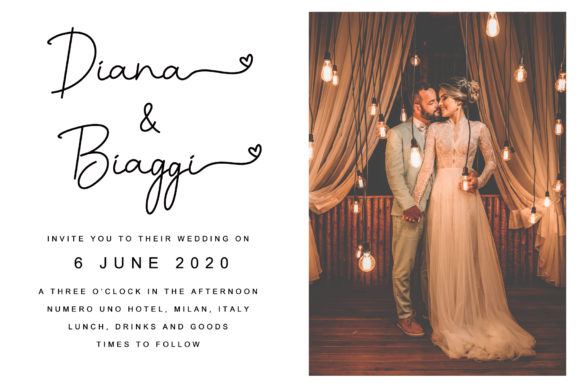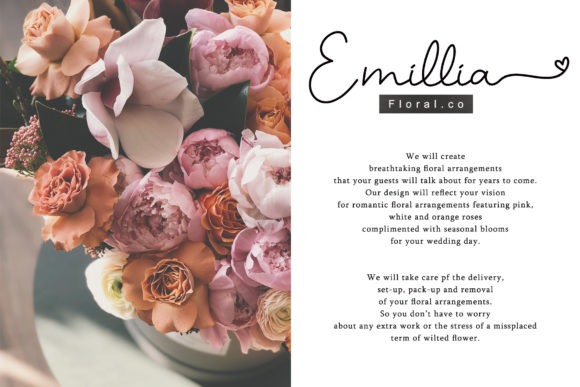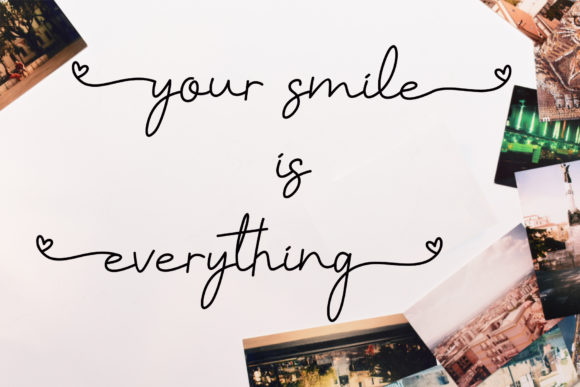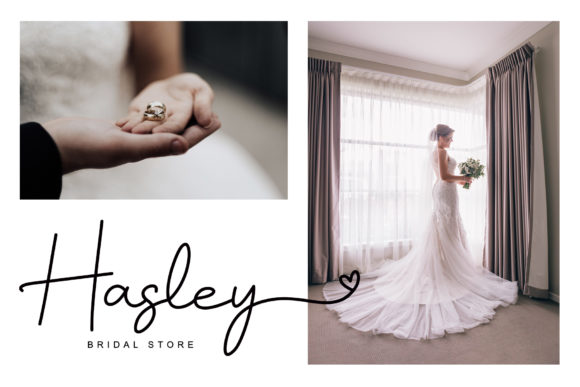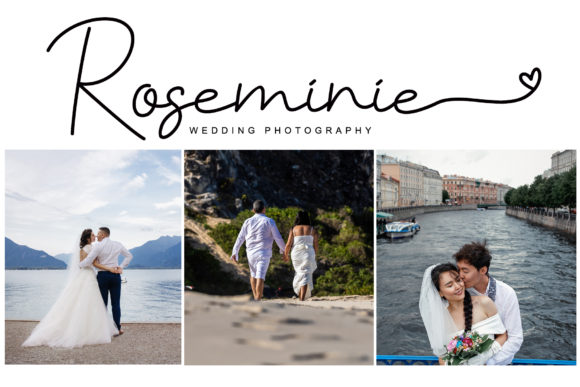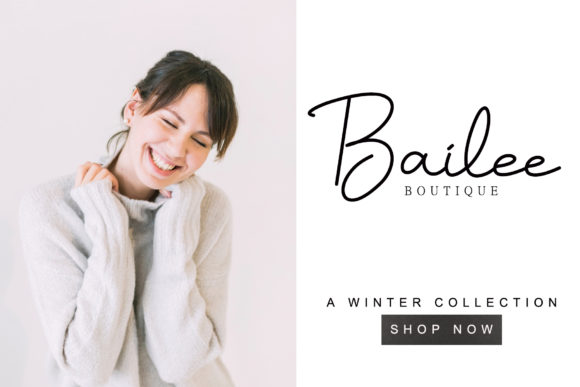
The Elusive Perfect Font: My Journey with Benalla
I’ll never forget the time I was working on a wedding invitation project, and my client asked for a font that was “elegant, yet casual and simple.” I scoured the internet, tried countless fonts, but nothing seemed to fit the bill. That was until I stumbled upon Benalla Font. ✨
Benalla is a beautiful, elegant, yet casual and simple font script featuring a natural look & feel. It has beautiful swashes and ligatures and it’s perfect for logos, wedding invitations, posters, social media posts, signatures, quotes and much more!
An Honest Review of Benalla Font
- ✨ Beautiful swashes and ligatures that add a touch of elegance to any design
- ✅ Easy to read and understand, even in smaller sizes
- ✅ Highly versatile and can be used for a wide range of design projects
- ✅ The natural look and feel of the font makes it perfect for designs that require a personal touch
While Benalla Font is an amazing font, there are a few quirks to be aware of: ⚠️
- 🤔 Some users may find the font a bit too script-like for certain projects
- ⚠️ The font may not work well with very bold or bright color schemes
The Story Behind Benalla Font
Benalla Font was designed with the intention of creating a beautiful, elegant script font that was both casual and simple. The designer wanted to create a font that would be perfect for designs that require a personal touch, such as wedding invitations and social media posts.
Q: What is Benalla Font?
A: Benalla Font is a beautiful, elegant script font featuring a natural look & feel. It has beautiful swashes and ligatures and it’s perfect for logos, wedding invitations, posters, social media posts, signatures, quotes and much more!
Q: Is Benalla Font easy to read?
A: Yes, Benalla Font is easy to read and understand, even in smaller sizes. However, it’s best to use it in larger sizes for maximum impact.